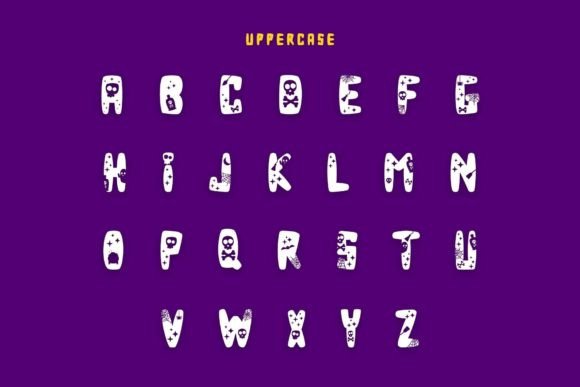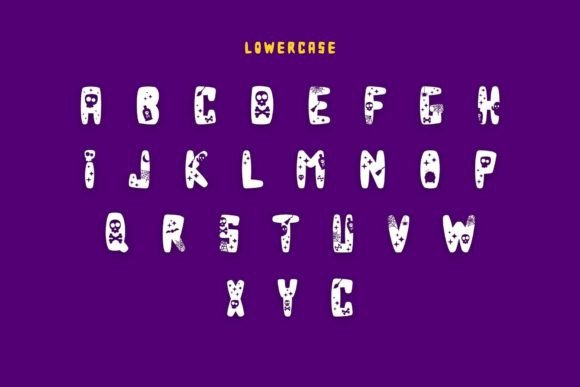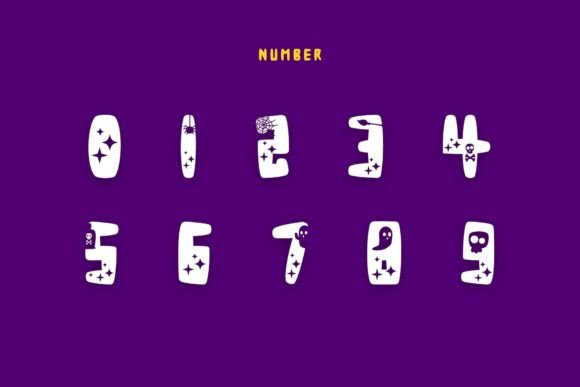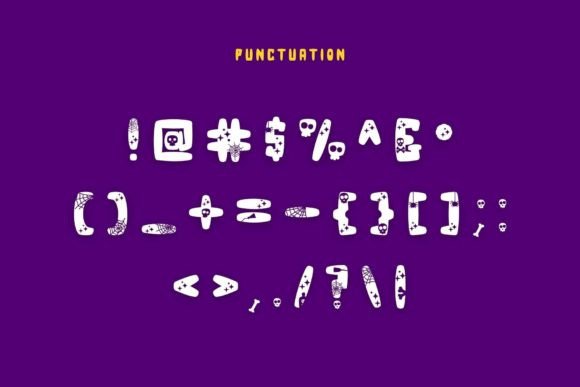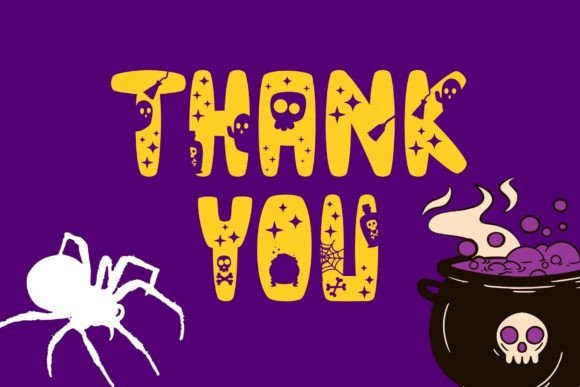
Happy Halloween Font: The Spookiest and Most Playful Font for Your Halloween Projects
Are you looking for a font that captures the essence of Halloween? Look no further than the Happy Halloween Font! This scary and fun decorative font is perfect for adding a touch of playfulness and authenticity to all your favorite Halloween projects. Whether you’re a designer, crafter, or simply a Halloween enthusiast, this font is sure to become your go-to choice for creating spooky and fun designs.
What Makes Happy Halloween Font So Special?
The Happy Halloween Font is designed to embody the spirit of Halloween, with a unique blend of playfulness and eeriness. Its decorative letters are perfect for creating eye-catching designs that are sure to stand out. The font’s playful and authentic feel makes it ideal for a wide range of projects, from blog posts and social media graphics to logos, branding, ads, invitations, greeting cards, planners, photo albums, decorations, and much more.
As a designer or crafter, you know how important it is to have the right tools and resources to bring your creative vision to life. The Happy Halloween Font is the perfect addition to your design arsenal, offering a versatile and fun way to add a touch of Halloween magic to your projects. Whether you’re creating designs for clients or personal projects, this font is sure to inspire your creativity and help you produce stunning results.
Endless Possibilities for Your Halloween Projects
The Happy Halloween Font is incredibly versatile, making it perfect for a wide range of Halloween projects. Here are just a few ideas to get you started:
- Blog Posts: Add a touch of Halloween flair to your blog posts with eye-catching headings and titles.
- Social Media Graphics: Create spooky and fun social media graphics that are sure to grab attention.
- Logos and Branding: Use the Happy Halloween Font to create a unique and memorable logo or brand identity.
- Ads and Invitations: Create eye-catching ads and invitations that will stand out from the crowd.
- Greeting Cards and Planners: Add a touch of Halloween magic to your greeting cards and planners.
- Photo Albums and Decorations: Use the Happy Halloween Font to create spooky and fun photo albums and decorations.
Why Choose Happy Halloween Font?
So why choose the Happy Halloween Font for your Halloween projects? Here are just a few reasons:
- Unique and Playful Design: The Happy Halloween Font features a unique and playful design that’s sure to stand out.
- Authentic Halloween Feel: The font’s authentic Halloween feel makes it perfect for creating spooky and fun designs.
- Versatile: The Happy Halloween Font is incredibly versatile, making it perfect for a wide range of projects.
- Easy to Use: The font is easy to use and can be easily integrated into your designs.
Get Ready to Cast a Spell with Happy Halloween Font!
If you’re looking for a font that will add a touch of magic to your Halloween projects, look no further than the Happy Halloween Font. With its unique and playful design, authentic Halloween feel, and versatility, this font is sure to become your go-to choice for all your Halloween design needs. So why wait? Get ready to cast a spell with the Happy Halloween Font and create some spook-tacular designs!